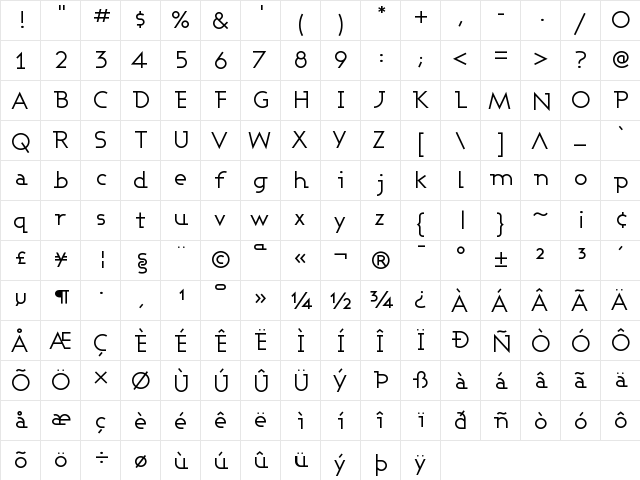
Ashby Book Regular
Design Context for Ashby Book Typeface
Ashby Book is a composed and adaptable typeface that performs quietly and consistently across a wide range of design contexts.